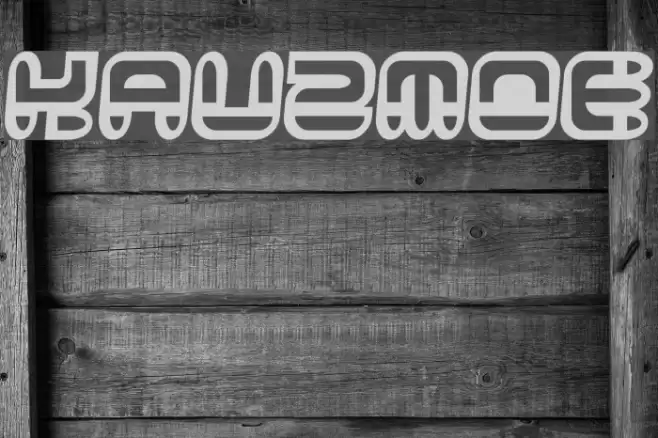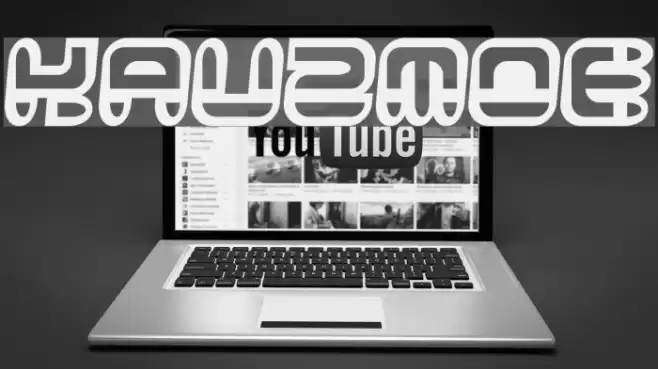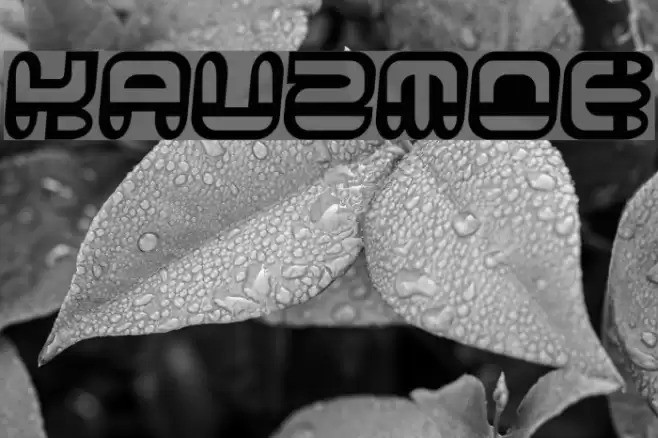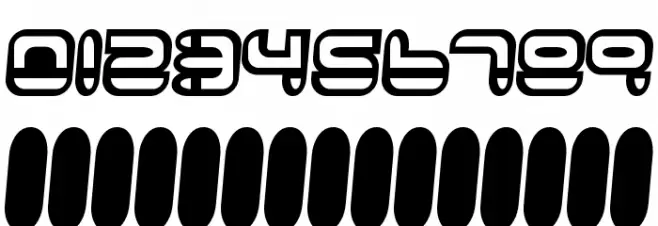
Kauzmoe Font
Kauzmoe Description
This font features a bold, futuristic design with a distinct geometric style. Each character is enclosed within a thick outline, giving it a three-dimensional appearance. The letters are rounded with a consistent stroke width, creating a cohesive and modern look. The uppercase and lowercase letters are similar in style, maintaining uniformity across the typeface. The numbers and special characters follow the same design principles, ensuring a harmonious visual experience. This font is ideal for projects that require a strong, contemporary aesthetic.
A bold, futuristic font with geometric and rounded characters from Uncategorized fonts.
- Proposed Projects: Ideal for technology branding, sci-fi posters, video game titles, and modern advertising.